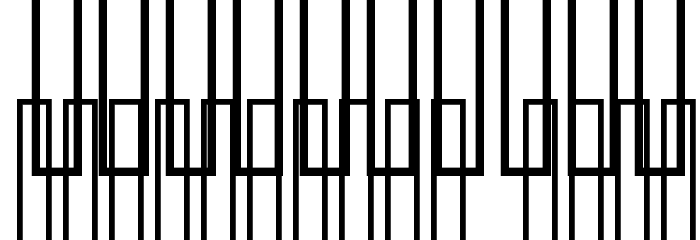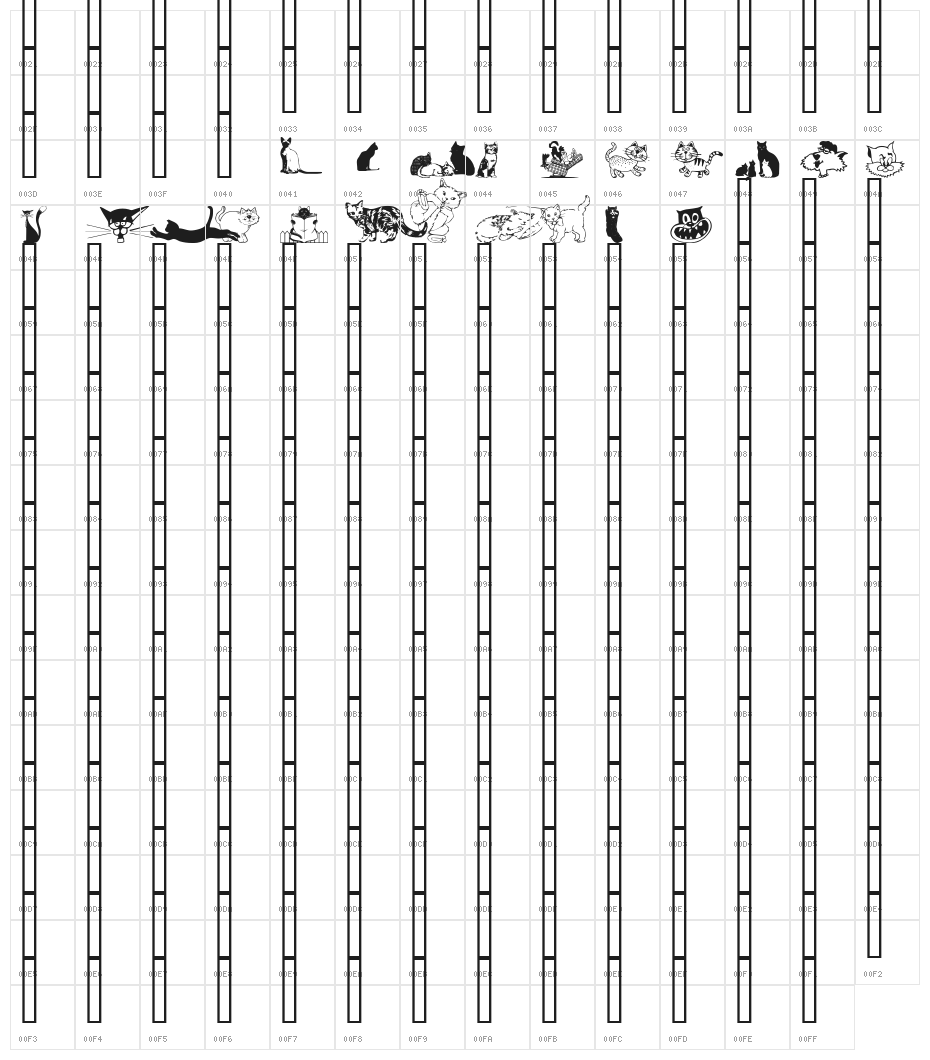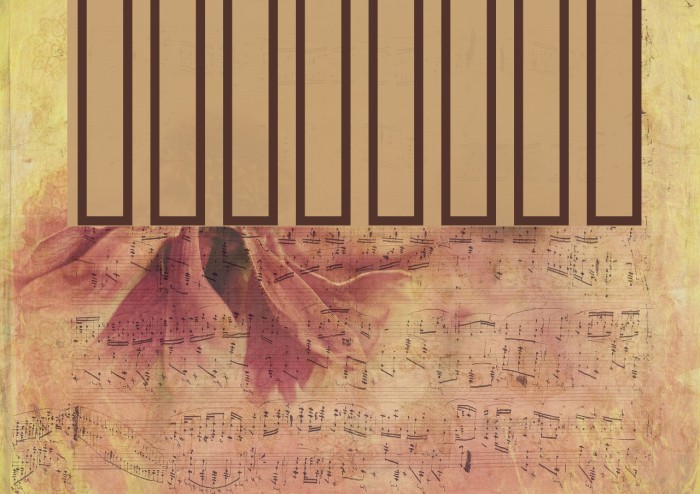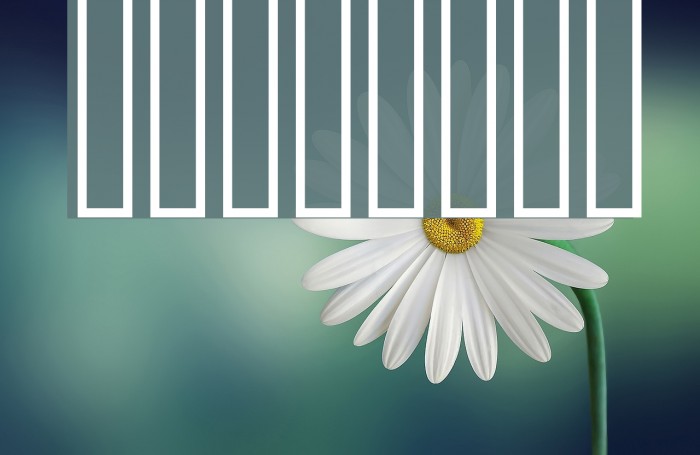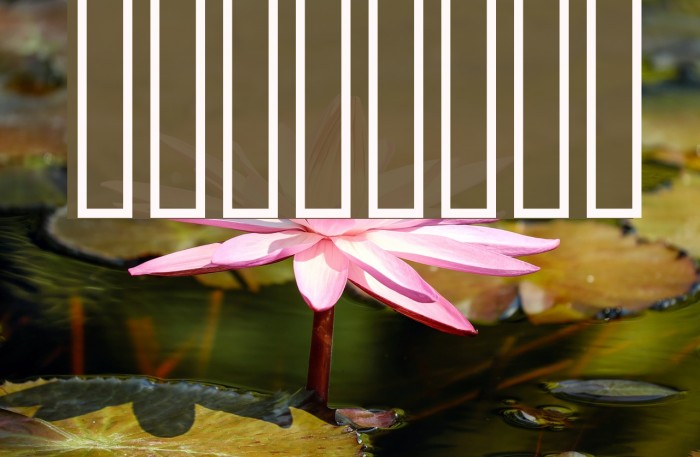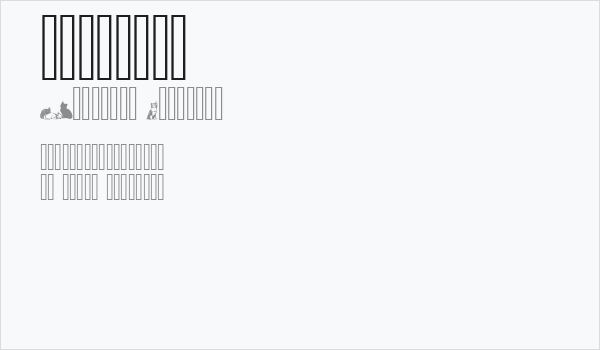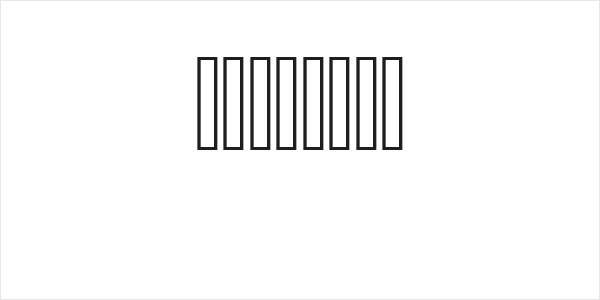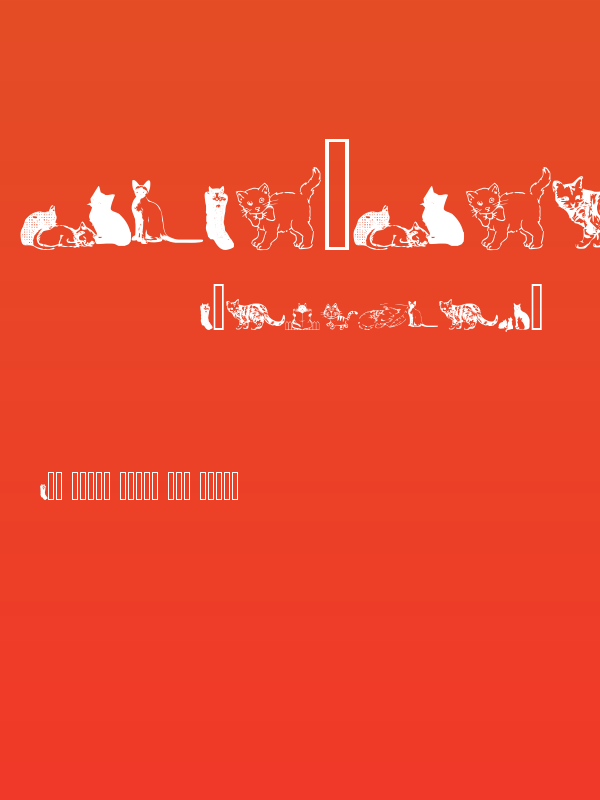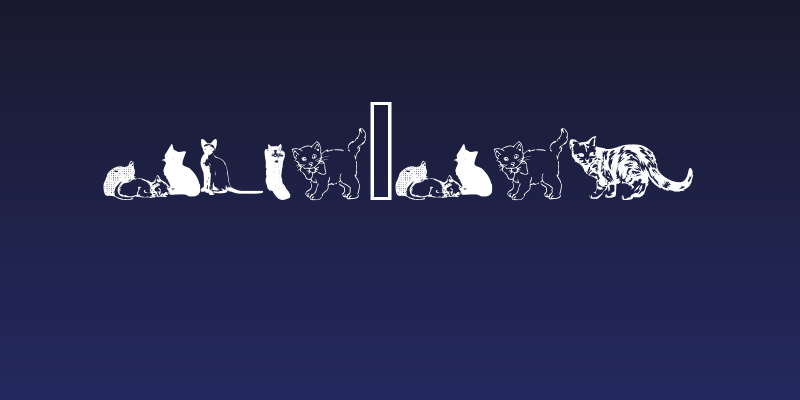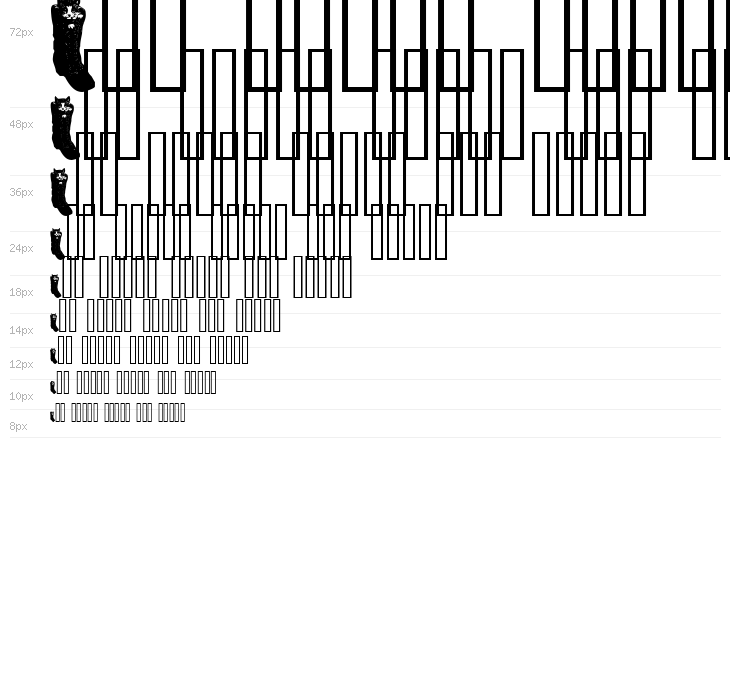
cats_csp Font
cats_csp Description
A playful decorative font featuring a variety of illustrated cat characters and abstract geometric patterns instead of traditional alphanumeric glyphs. The designs are whimsical, with each character slot displaying a unique cat or a bold, linear geometric form.
| Overall Style | Whimsical, Playful, Decorative |
| Use Case | Logos, Posters, Headlines, Themed event invitations |
| Proposed Projects | Children's books, pet store branding, playful posters, greeting cards, novelty products. |